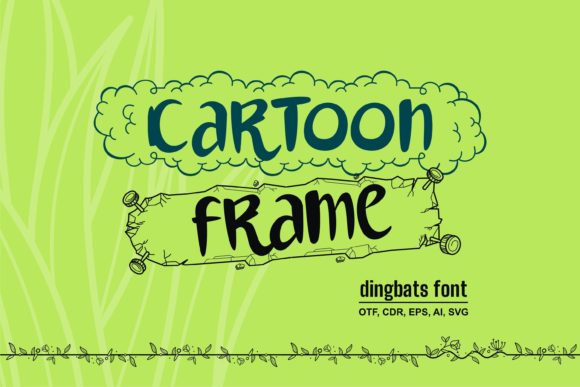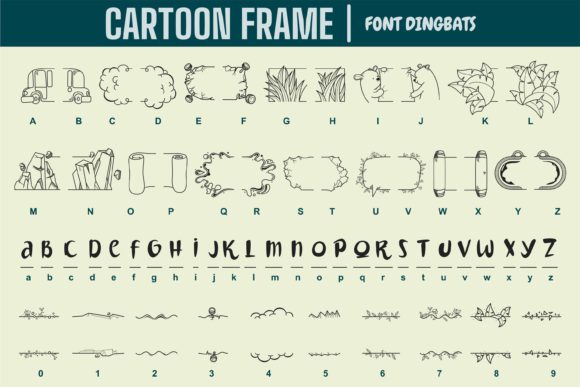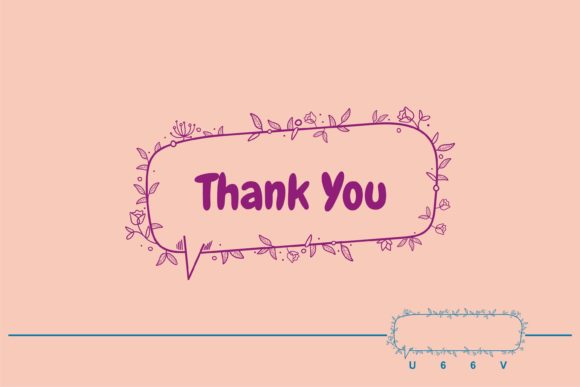
Cartoon Frame Font
About Cartoon Frame Font
Cartoon Frame is a useful and highly detailed dingbats font. Whether you’re using it for crafting, digital designing, presentations or greeting cards making, it’s perfect!